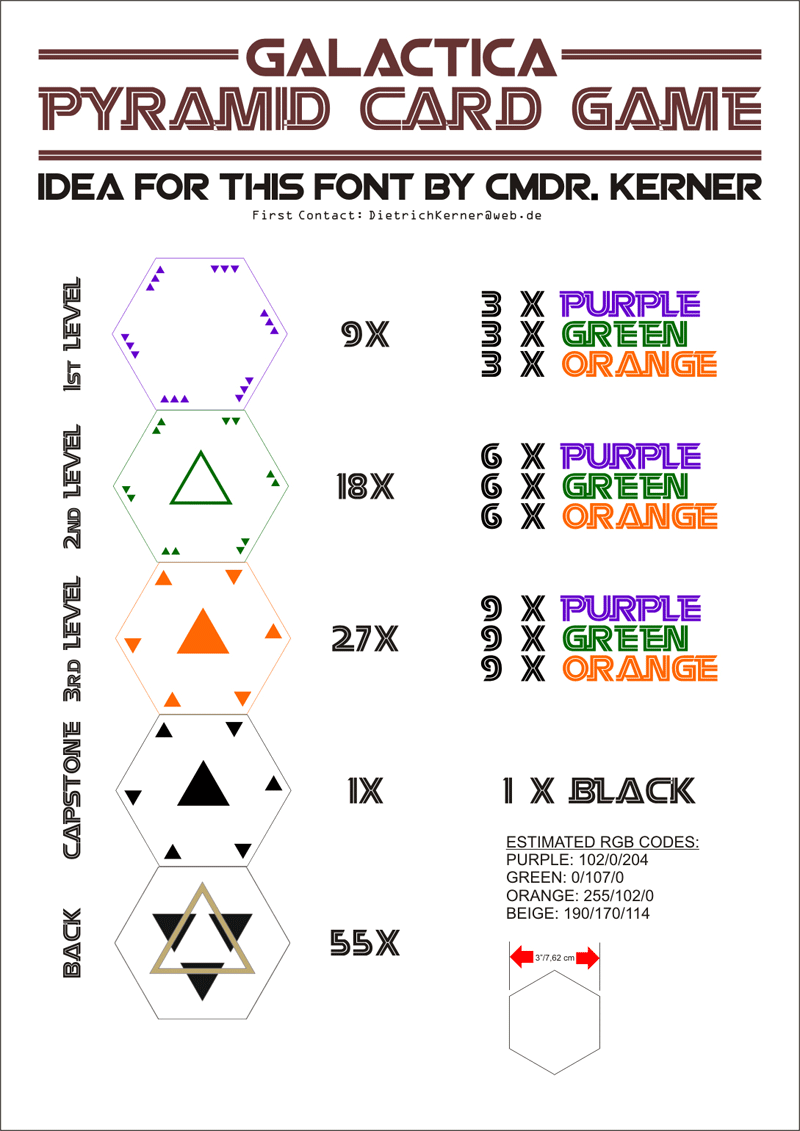
Font name: | Galactica Pyramid Card Game |
Categories | Dingbats, TV, Movie |
Author: | Dietrich Kerner |
Note by Dietrich Kerner | |
With the help of this font you can create your own Pyramid Card Game from Battlestar Galactica. |